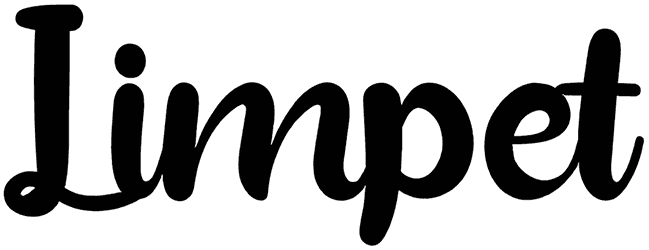
Don’t even think about ignoring a lovely script font, the same as Limpet, that comes with rounded characters and is capable of bringing a vibe of professionalism, momentum, drama, or dreaminess to all of your creative projects.
Limpet is a sophisticated handwritten font that is great for conveying
any message with confidence, authenticity, and charm. This will enhance
a variety of craft ideas, from cards, to branding, labels, and more.This